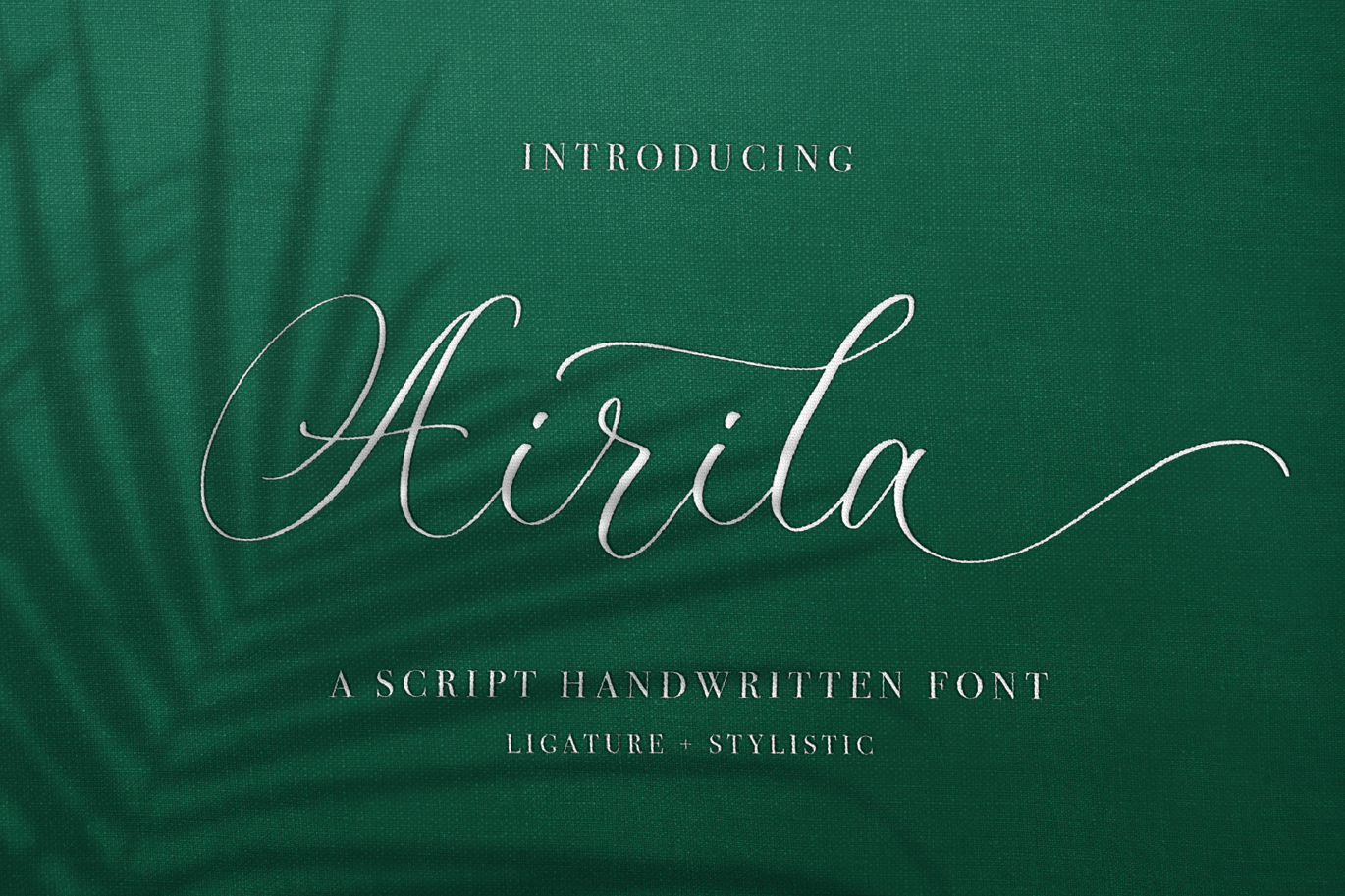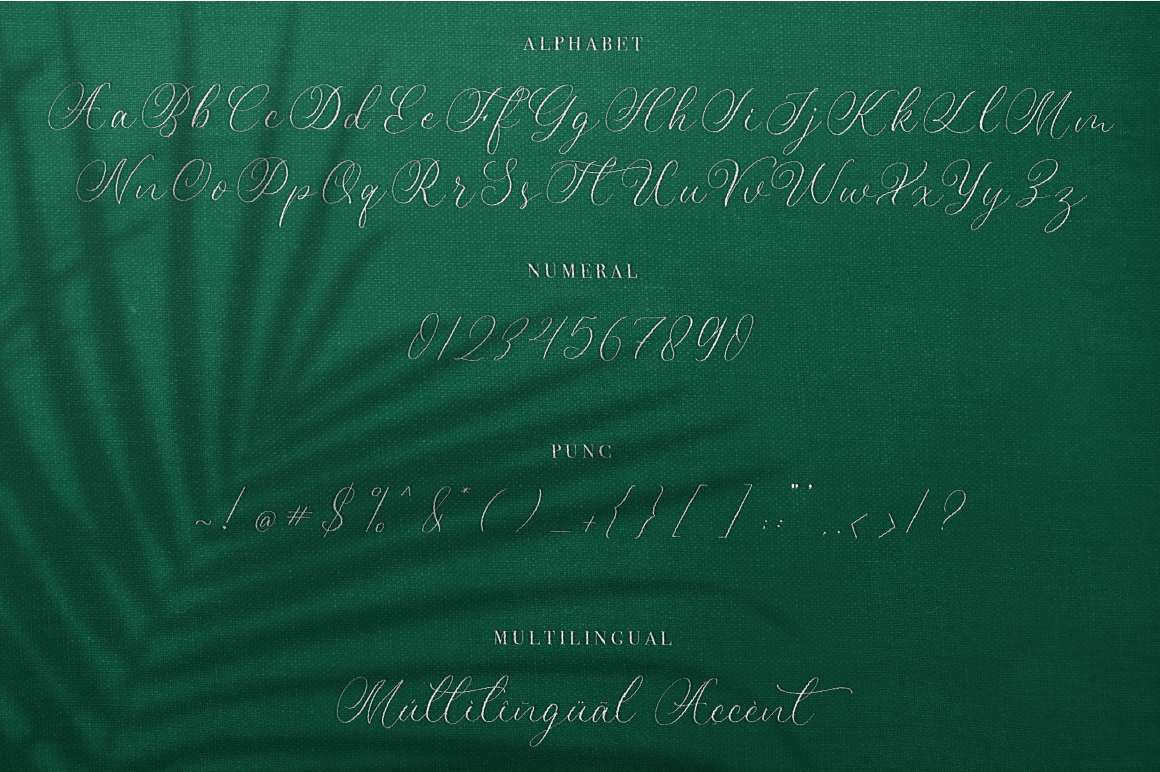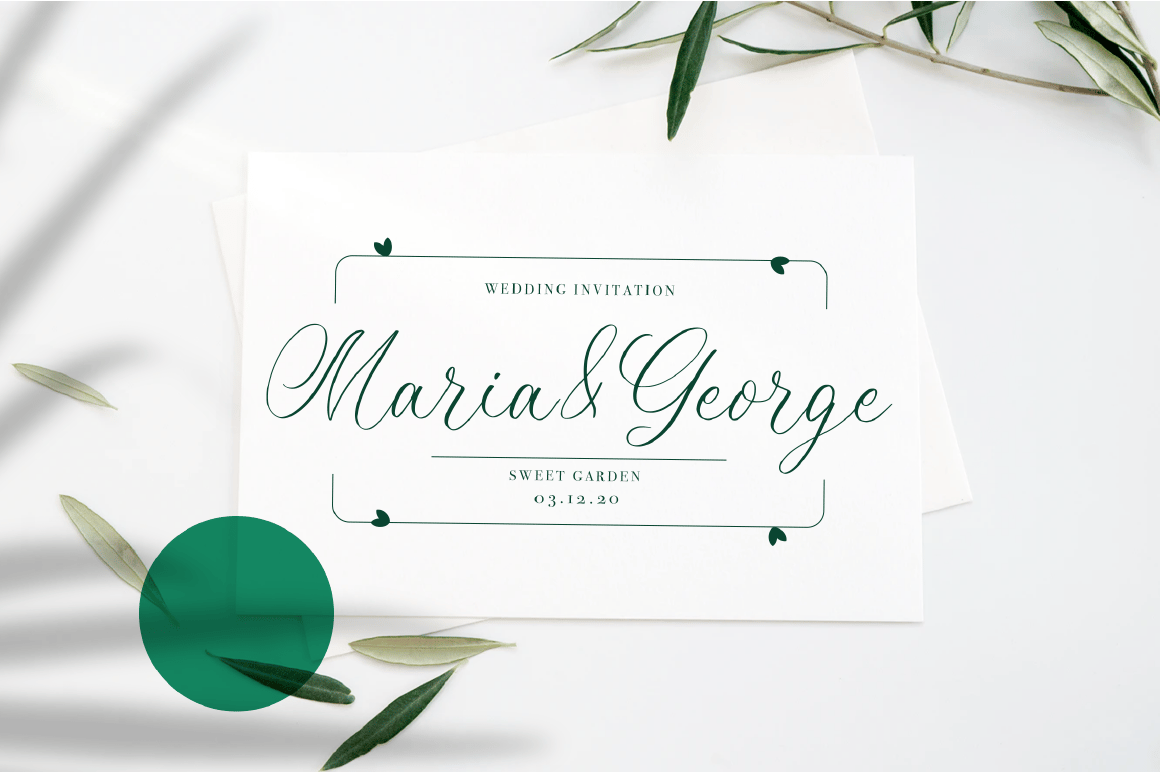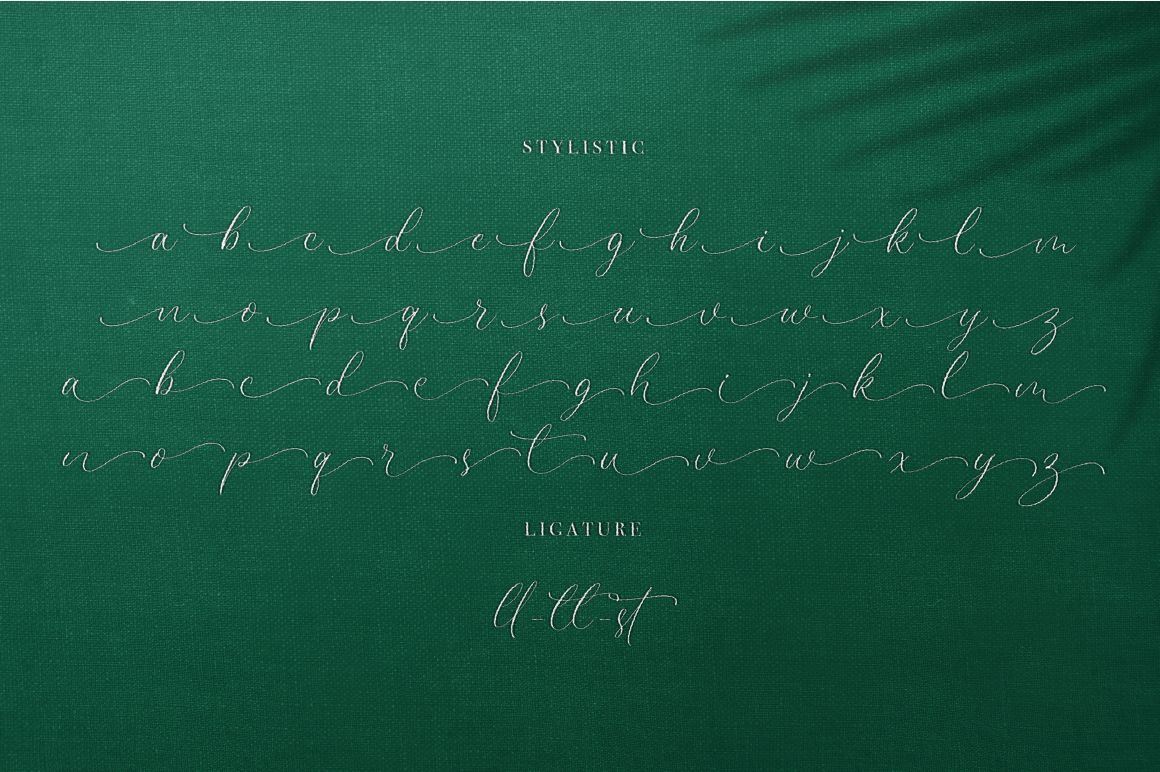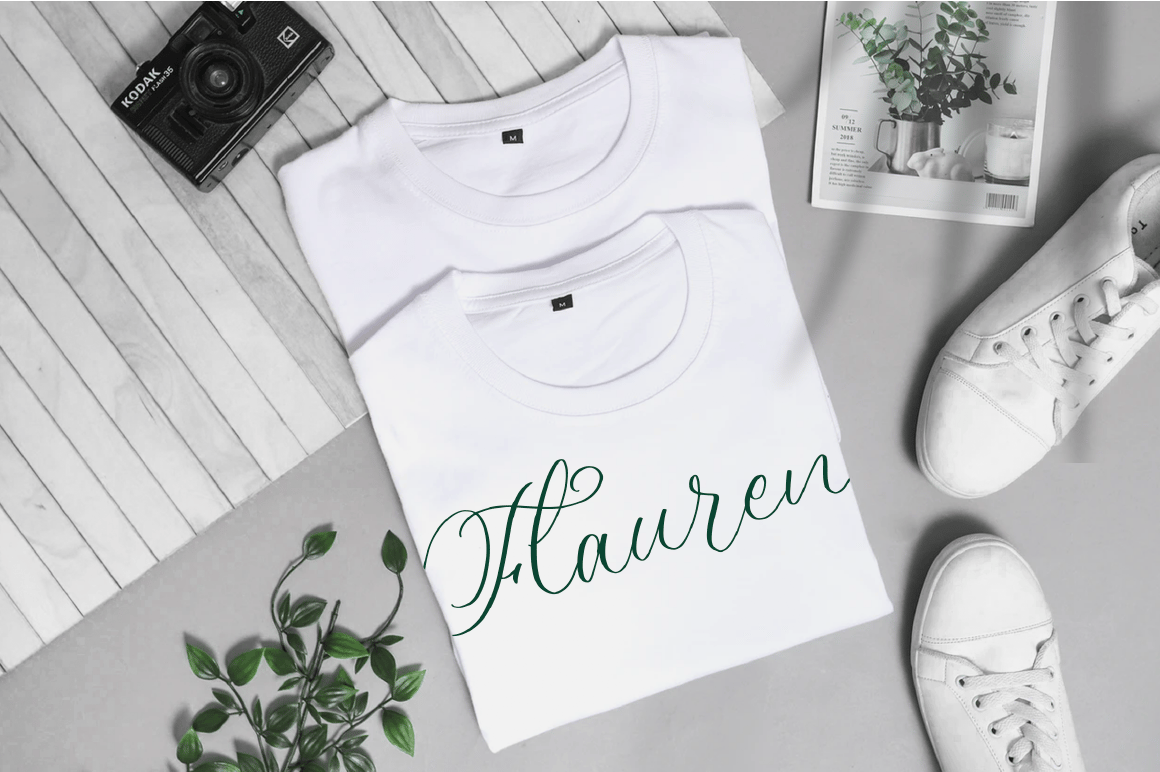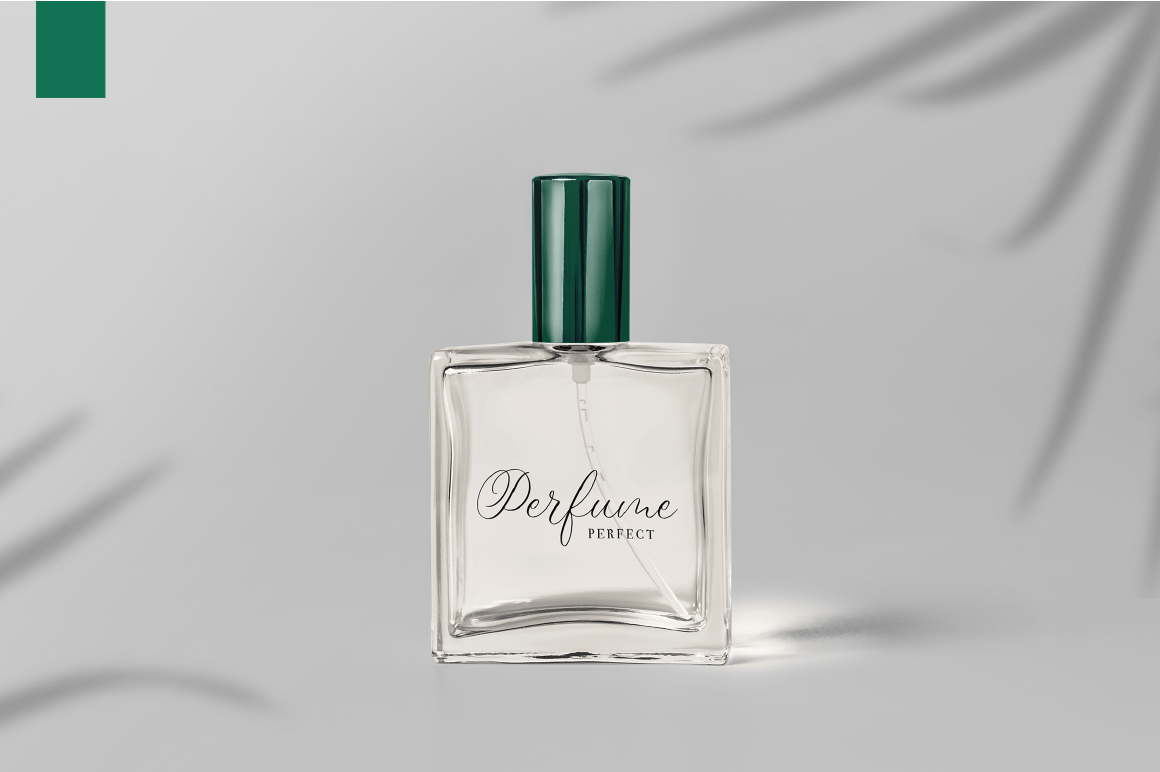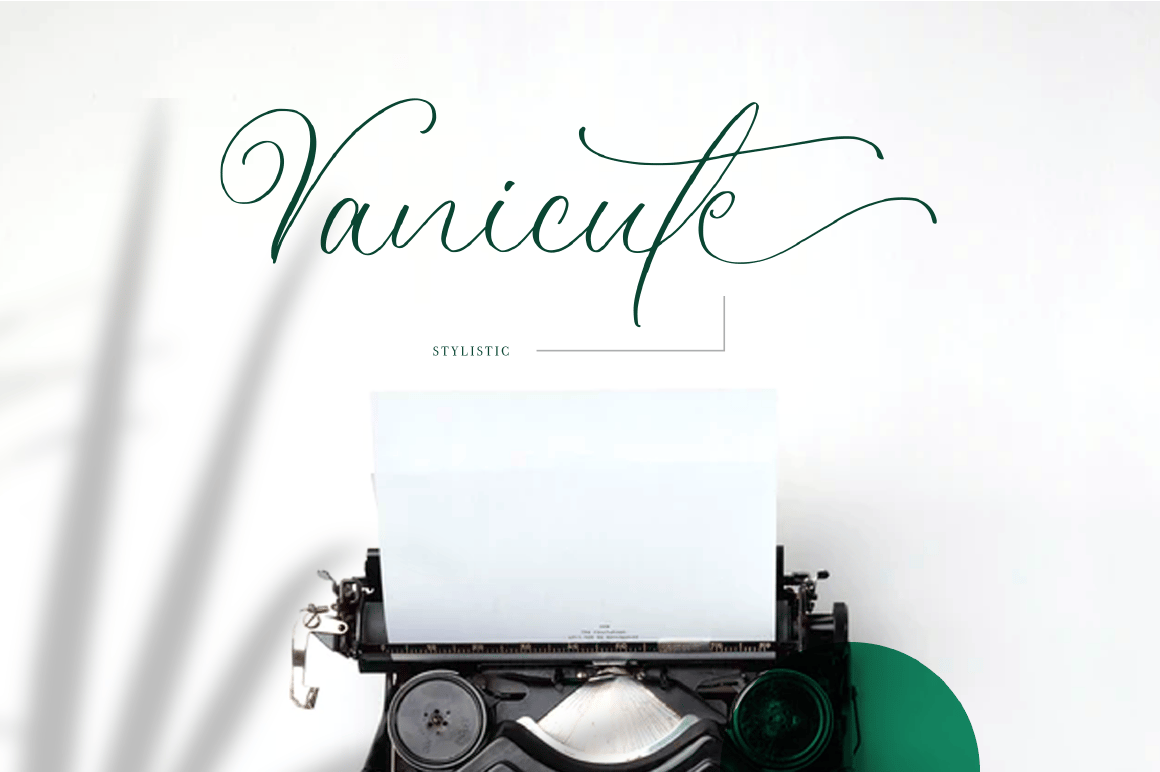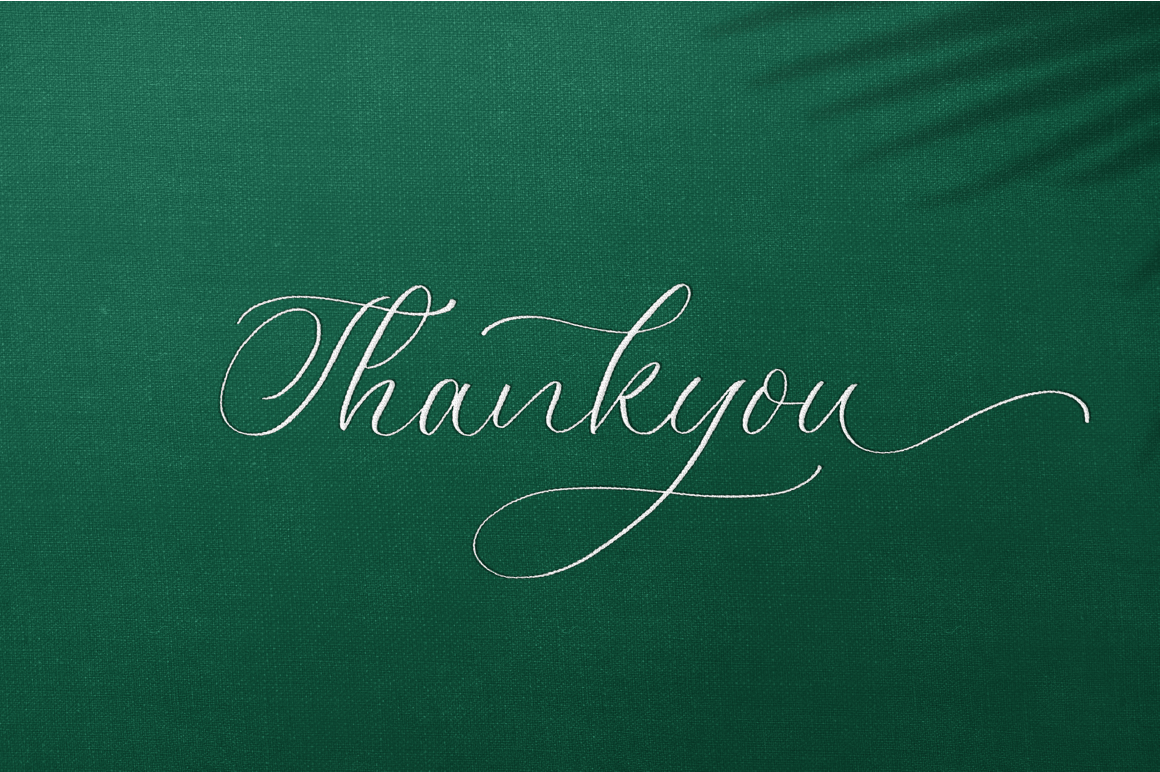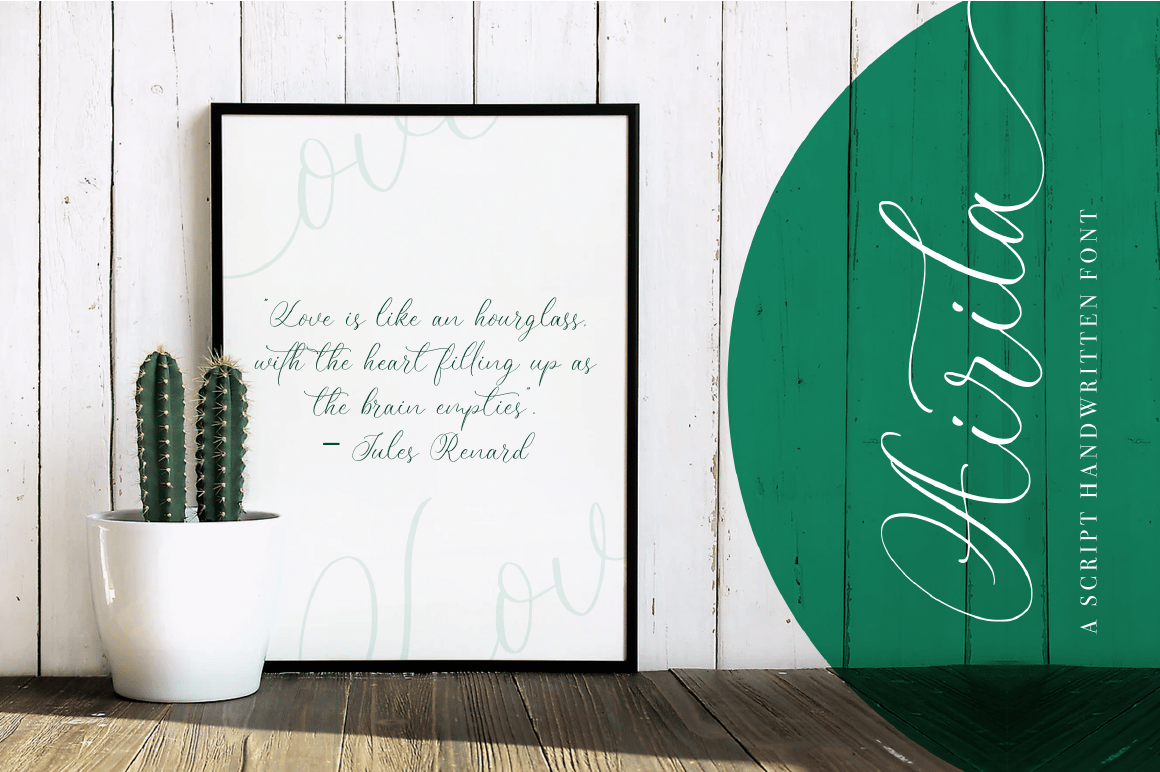
Airila – Calligraphy Font
Airila is a beautiful and elegant handwritten font. Delicate and well balanced, this font will brighten up each of your designs.